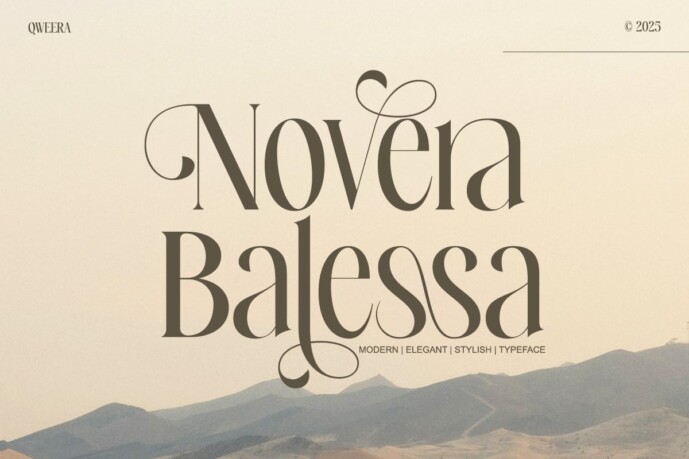
Novera Balessa Font
Novera Balessa – Modern Elegant Stylish Serif Typeface
Novera Balessa is a graceful serif typeface that perfectly balances elegance, style, and modern charm. Designed with artistic flourishes and high contrast strokes, this font brings expressive sophistication to every design—ideal for fashion branding, editorial headlines, luxury packaging, and elevated social media templates.
With its dramatic curves and delicate swashes, Novera Balessa is more than just a font—it’s a visual identity. The alternates and ligatures allow for stunning typographic combinations, helping you create high-impact designs with distinctive personality.